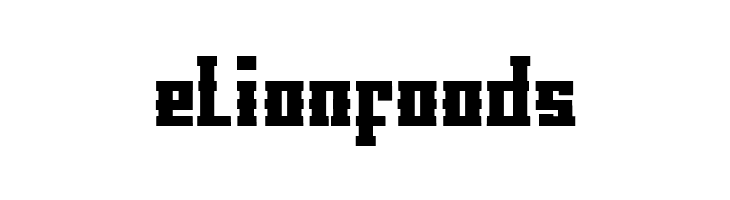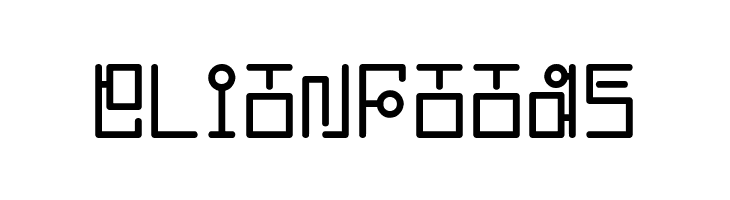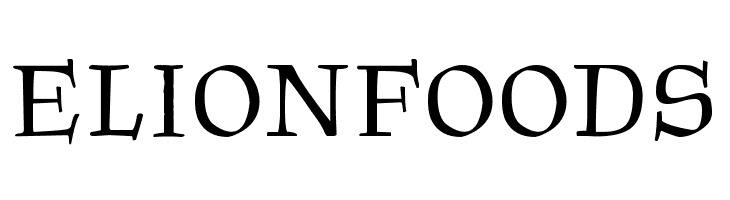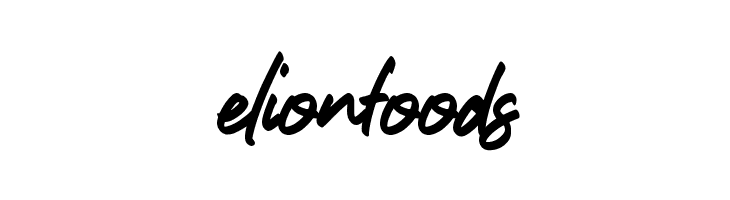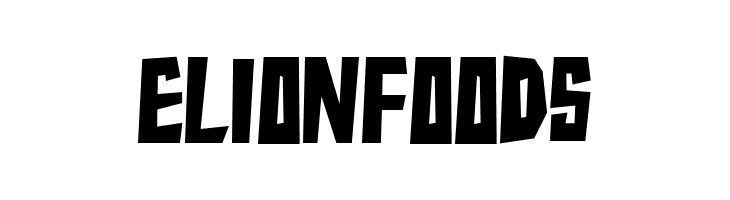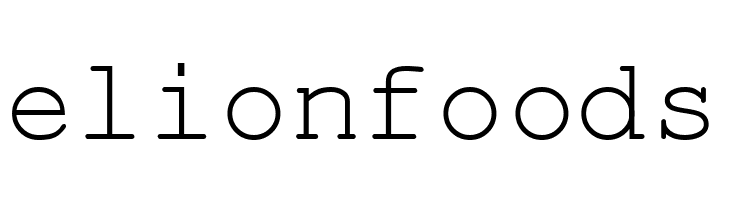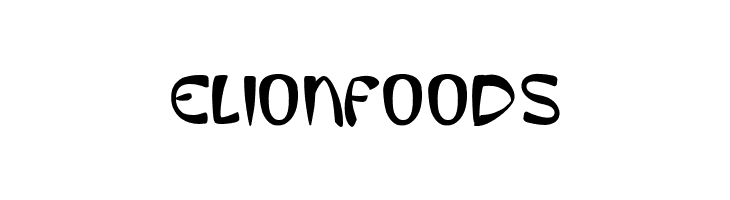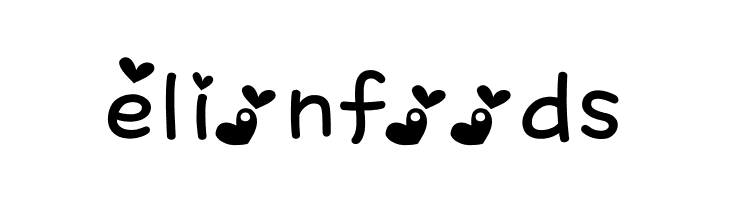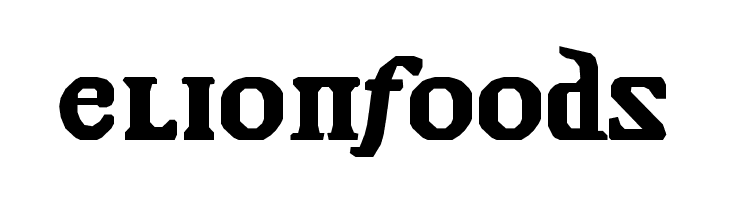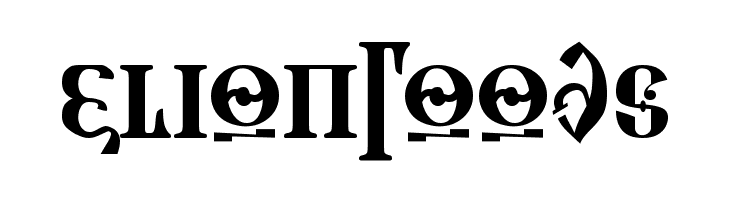
A classic calligraphic font with elegant, flowing strokes and traditional style.
A playful, hand-drawn font with tall, narrow letters and a whimsical style.
A bold, brush-style font with dynamic, hand-painted strokes.
Bold, playful handwritten script with a casual, energetic feel.
A playful, hand-drawn font with bold, rounded characters and a whimsical style.
A playful, handwritten font with irregular, whimsical strokes.
A bold, geometric outline font with a modern, futuristic aesthetic.
A bold, italic, and angular font with a modern and dynamic style.
Bold, angular display font with a playful style.
A playful, hand-drawn font with bold, dynamic strokes and a casual vibe.
A decorative font with a cross-stitch pattern, resembling traditional embroidery.
An elegant script font with flowing cursive style and intricate swashes.
A playful, handwritten-style font with bold, rounded characters.
A bold, geometric font with a strong, industrial aesthetic.
A bold, decorative font with artistic and whimsical character designs.
A bold, rounded font with a playful, hand-drawn style.
A bold, pixelated font inspired by retro digital displays and video games.
A bold, distressed font with a vintage, industrial feel.
A playful, handwritten script font with fluid, connected characters.
A geometric, modern font with Korean script-inspired elements.
A modern, geometric font with rounded edges and uniform width.
Bold, energetic handwritten script font.
A bold, energetic script font with flowing, interconnected strokes.